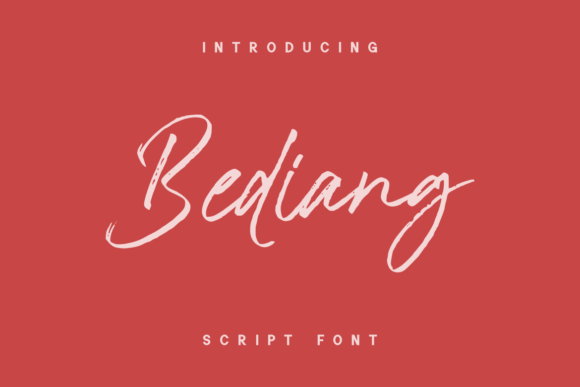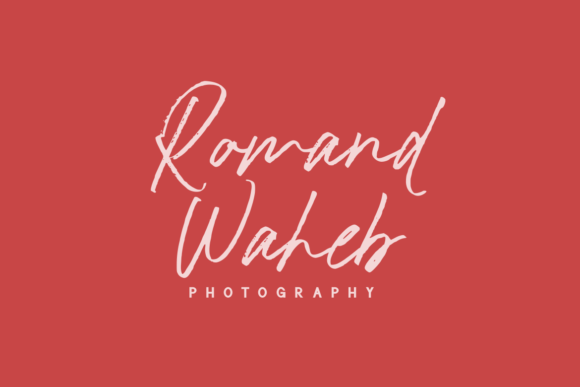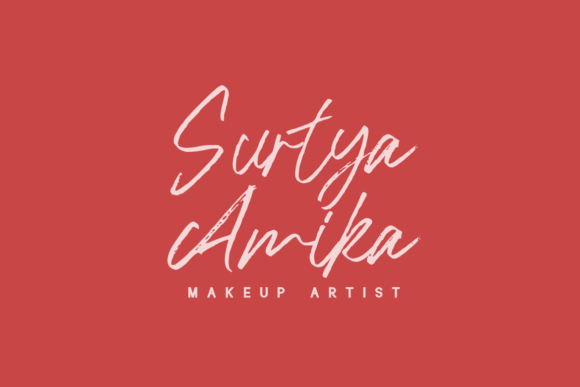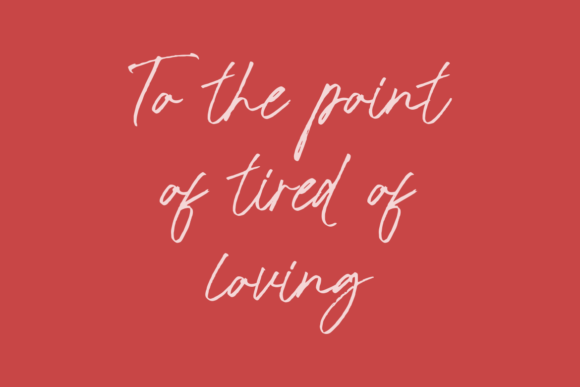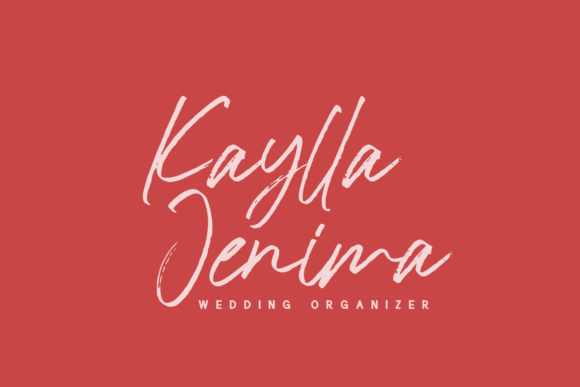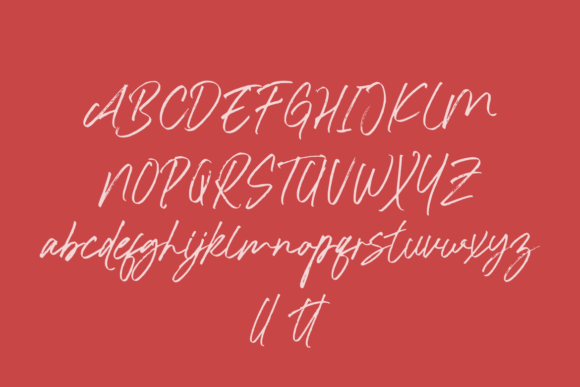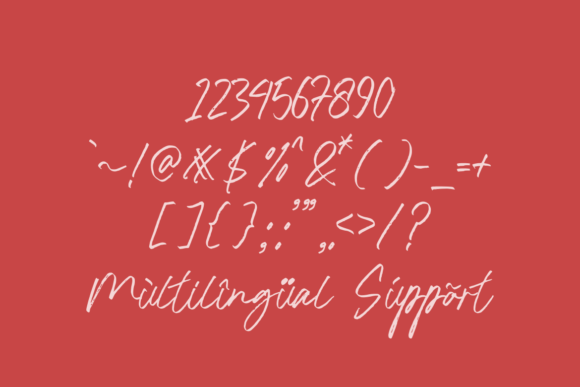
The Birth of a Unique Design
Have you ever sat down with a blank sheet of paper and a pen, letting your creativity flow freely without any expectations? For many designers, this moment is a gateway to innovative ideas and fresh perspectives. It’s in these unstructured moments that we discover the true essence of our art.
Enter the Bediang Font, a quirky handwritten font that captures the essence of handwritten text. Made to resemble the natural characteristics of handwriting, this font is perfect for bringing a personal touch to your projects. Whether it’s a website, logo, or invitation, the Bediang Font adds a unique and organic feel that sets your design apart. As a valuable resource for designers, the Bediang Font offers endless possibilities for creative expression and storytelling.
Bediang Font Key Features
- Font Family: Bediang Font is a multi-style font family, offering a variety of styles to suit different design needs.
- Unique Characteristics: The font features a unique blend of African and modern design elements, making it a standout choice for designers looking to add a touch of cultural flair to their work.
Bediang Font Review
Overall, I found the Bediang Font to be a unique and interesting addition to any design project. Here are some of the things that stood out to me:
- ✨ The font’s distinct, handwritten feel adds a touch of personality to text-based elements. It’s perfect for creating a friendly, approachable atmosphere in your designs.
- ✨ The font’s variability in letterforms and strokes creates a sense of movement and energy, making it ideal for use in dynamic and creative projects.
- ✨ Bediang Font is highly customizable, allowing you to easily adjust the weight, width, and other attributes to suit your design needs.
- ⚠️ The font may be difficult to read in certain contexts, particularly at small font sizes or in situations where the text is competing with other visual elements.
- ⚠️ The font’s unique character set can make it challenging to use in situations where consistency and standardization are crucial.
Overall, I think the Bediang Font is a great choice for designers looking to add some flair and personality to their work. With its unique style and high degree of customizability, it’s perfect for creative projects and branding initiatives. Just be mindful of the potential limitations and use it judiciously.
Tips for Getting the Most Out of Bediang Font
Use Bediang Font for creative projects that require a unique and playful touch.
Combine Bediang Font with other fonts to create a visually appealing and balanced design.
Experiment with different font sizes, colors, and styles to find the perfect look for your project.
Bediang Font is ideal for:
Children’s books and educational materials
Playful branding and marketing materials
Wedding invitations and event decor
Alternatives to Bediang Font for Designers
Pacifico Font is a beautiful, elegant, and cursive script font that can be used for a wide range of designs, from wedding invitations to packaging labels. It is perfect for creating a sophisticated and luxurious feel in your designs. Pacifico Font has a more polished and refined look compared to Bediang Font, which is more casual and playful.
When to use: Wedding invitations, luxury packaging, high-end branding, and other designs where elegance and sophistication are required.
Great Vibes Font is a modern and stylish script font that can be used for a variety of designs, from logos to typography-based art. It has a more dynamic and energetic feel compared to Bediang Font, making it perfect for designs that require a sense of movement and excitement.